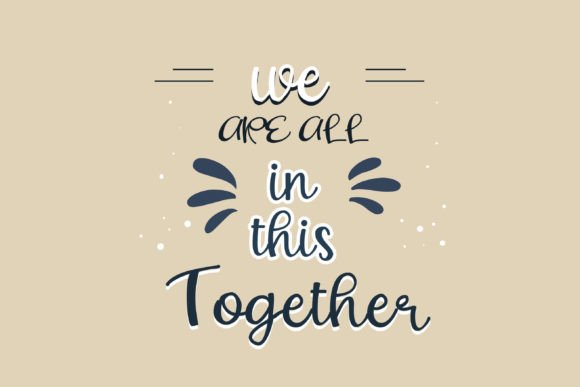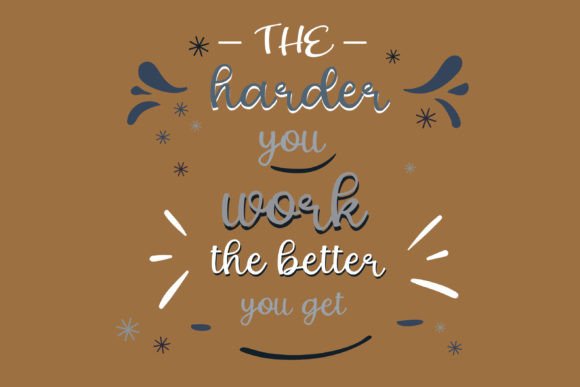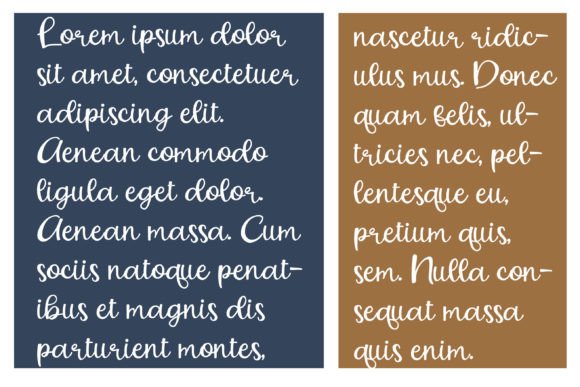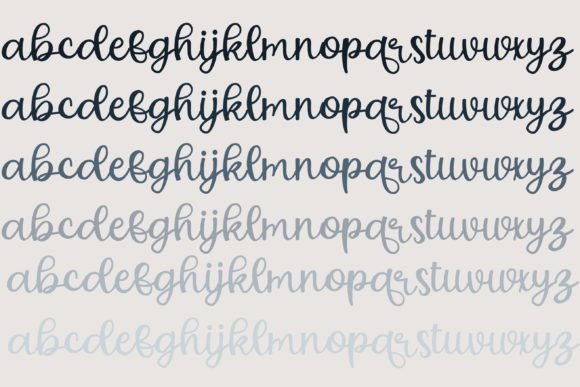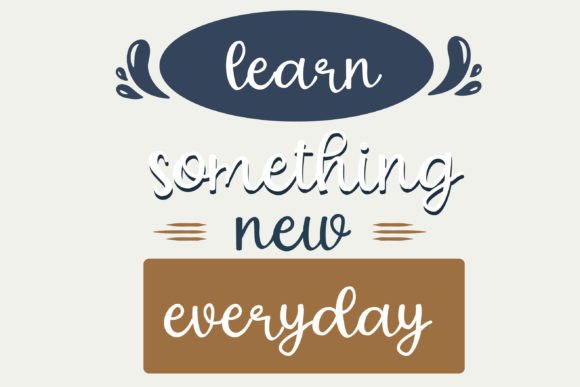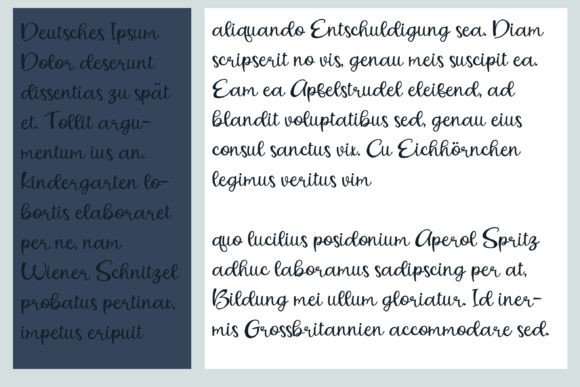
Introducing the Elegant Halfpenny Font: Elevate Your Designs with a Personal Touch
In the world of typography, a well-chosen font can make all the difference in transforming a design from ordinary to extraordinary. For designers and crafters looking to add a touch of elegance and personality to their projects, the Halfpenny Font is an exceptional choice. This beautiful, hand-written cursive script offers a perfect blend of casual flair and print-like uppercase letters, making it incredibly versatile for a wide range of applications.
What Makes Halfpenny Font Stand Out?
The Halfpenny Font is distinguished by its unique, cursive script style that exudes a sense of warmth and approachability. Its print-like uppercase letters add a level of sophistication, making it suitable for projects that require a bit of elegance. This font is not just a typeface; it’s a way to infuse your designs with a personal touch that resonates with your audience.
One of the key advantages of the Halfpenny Font is its versatility. It’s perfect for a multitude of projects, including:
- Logos & Branding: Create a memorable brand identity with a logo that stands out. The Halfpenny Font’s unique style can help your brand appear more approachable and distinctive.
- Invitations & Stationery: Add a touch of elegance to your invitations, greeting cards, and stationery. The font’s cursive beauty is sure to impress.
- Wedding Designs: Make your wedding designs, such as invitations, programs, and place cards, truly special with this beautiful font.
- Social Media Posts: Elevate your social media presence with eye-catching posts that utilize the Halfpenny Font for a personal touch.
- Advertisements & Product Packaging: Stand out in a crowded market with advertisements and product packaging that feature this gorgeous typography.
- Product Designs & Labels: Add a personal touch to your product designs and labels, making them more appealing to potential customers.
- Photography & Watermarks: Use the Halfpenny Font for watermarks on your photos or as part of your photography designs for a unique look.
- Special Events: Whether it’s a birthday, anniversary, or any other special occasion, this font can help make your event designs unforgettable.
Why Choose Halfpenny Font?
Choosing the Halfpenny Font for your design projects comes with several benefits:
- Elegance & Versatility: It offers the perfect balance of elegance and casualness, making it suitable for a wide range of projects.
- Easy to Read: Despite its cursive nature, the font remains highly legible, ensuring your message is always clear.
- Unique Style: It helps your designs stand out from the crowd with its distinctive, hand-written cursive style.
- Time-Saving: With its comprehensive set of characters, you can complete your designs quickly without compromising on quality.
How to Use Halfpenny Font Effectively
To make the most of the Halfpenny Font, consider the following tips:
- Pair it Wisely: Combine it with complementary fonts for contrast and visual interest.
- Play with Sizes: Experiment with different font sizes to create a hierarchy of information.
- Adjust Spacing: Pay attention to letter and line spacing to ensure readability and aesthetics.
- Color Matters: Choose colors that complement the font and enhance the overall design.
The Halfpenny Font is a versatile and elegant typeface that can elevate your designs to new heights. Whether you’re a designer, crafter, or simply someone who appreciates beautiful typography, this font offers endless possibilities for creativity. With its unique blend of casual script and print-like uppercase letters, it’s the perfect choice for anyone looking to add a personal touch to their projects. So, why settle for ordinary when you can create something extraordinary with the Halfpenny Font?